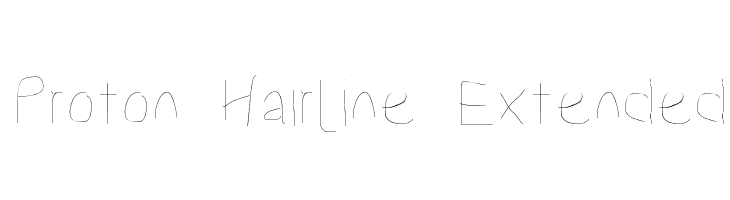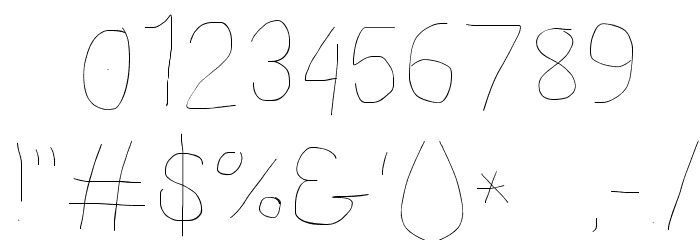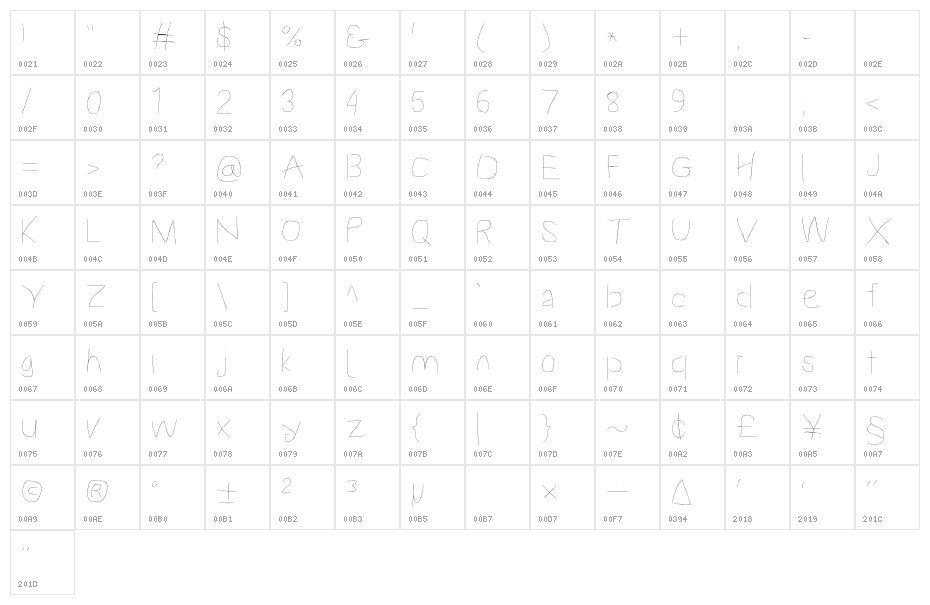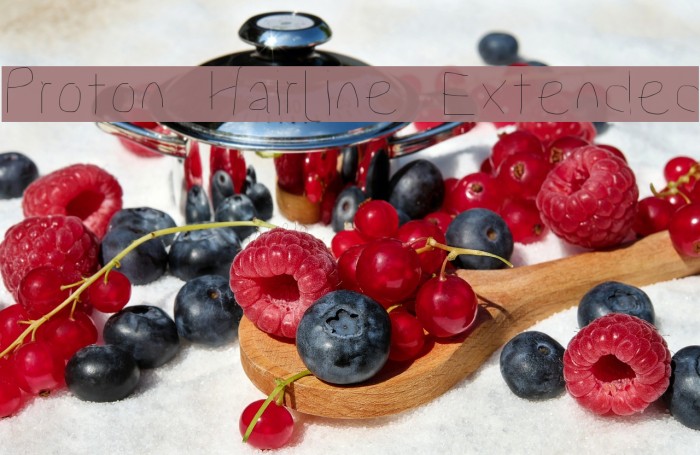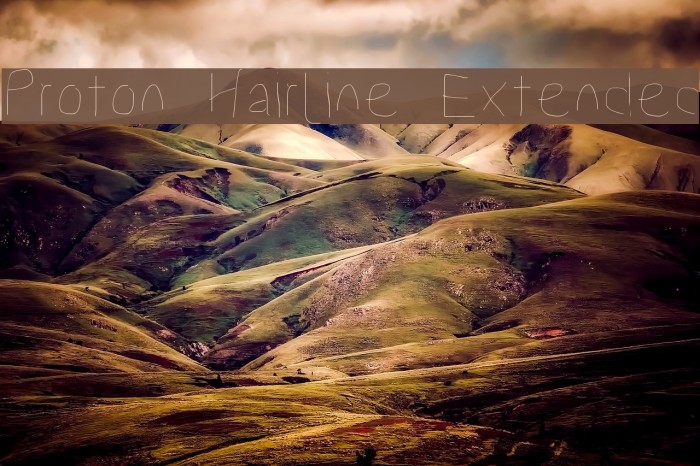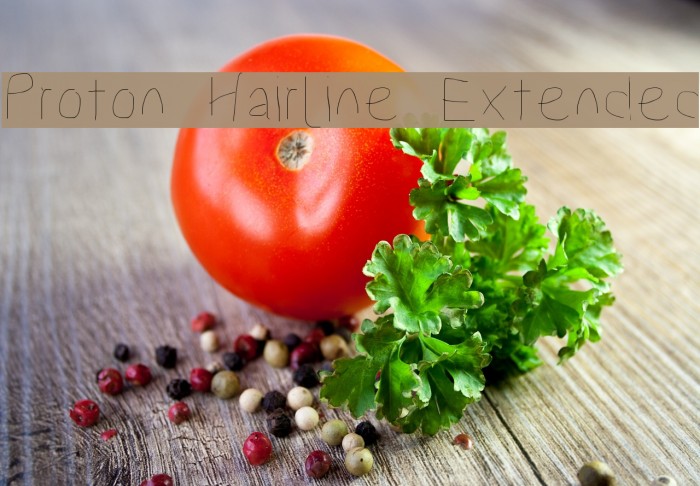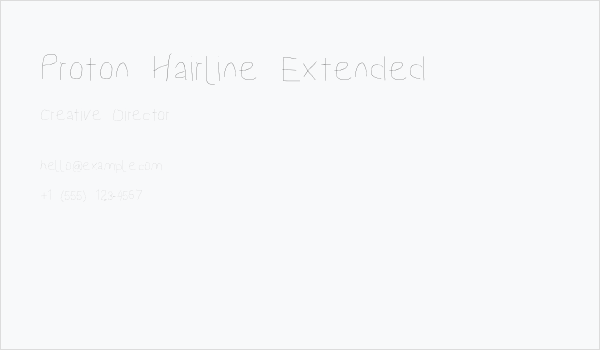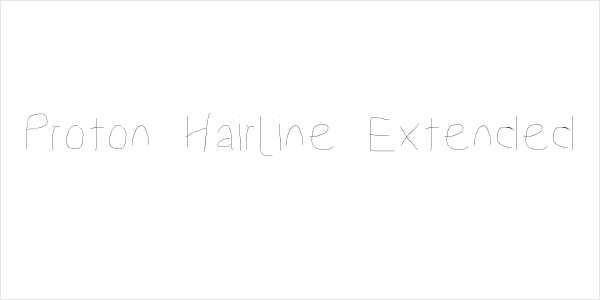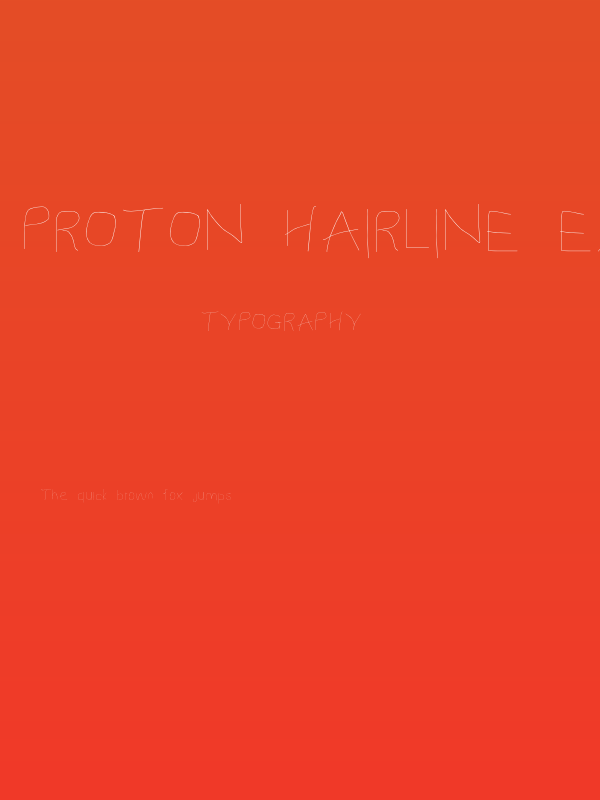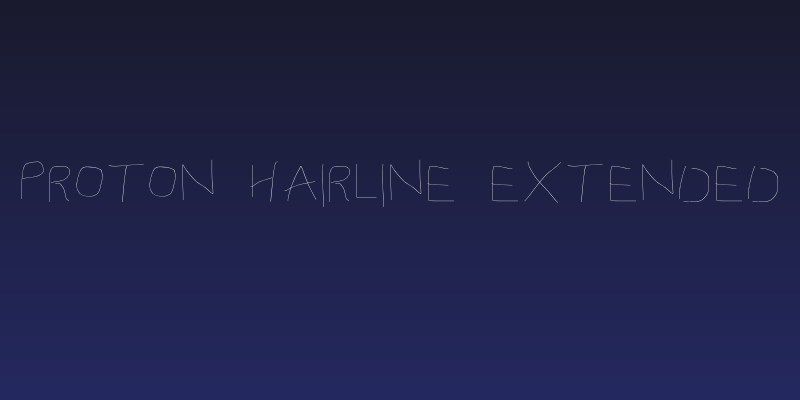
Proton Hairline Extended Font
Proton Hairline Extended Description
This font features an ultra-thin, hairline style with extended proportions, giving it a modern and minimalist appearance. The characters are elongated and sleek, with a consistent stroke width that emphasizes clarity and elegance. The uppercase and lowercase letters maintain a uniform height, creating a harmonious and balanced look. The numerals and special characters are designed with the same thin lines, ensuring a cohesive appearance across all glyphs. This font's delicate structure makes it ideal for applications where a subtle and refined aesthetic is desired.
Proposed ProjectsIdeal for fashion magazines, luxury branding, minimalist posters, and elegant invitations.